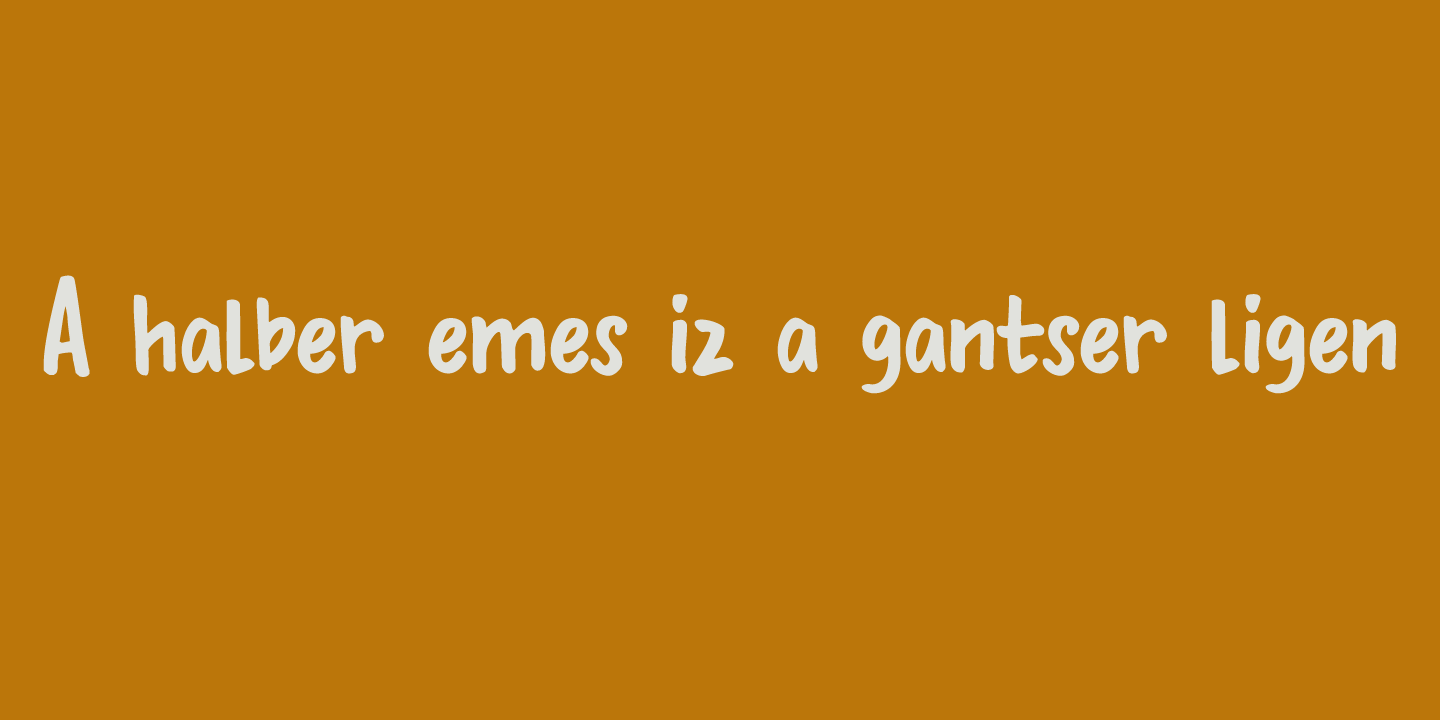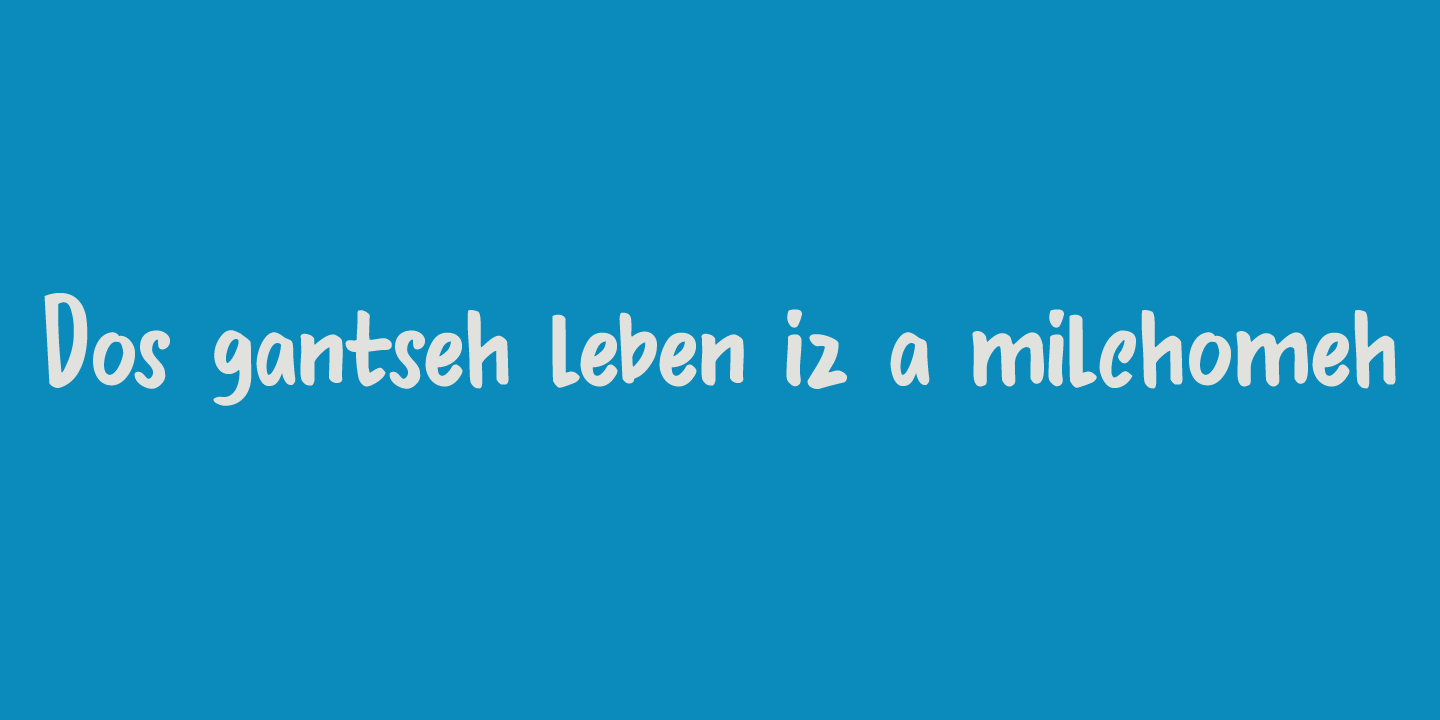
About Bupkis
Bupkis literally means ?goat\’s dropping? in Yiddish, but it is used to say ?nothing, zero, zilch?. Bupkis is a very nice handmade font. A little formal, a little uneven, a little unusual. Use for it whatever you like, but product packaging, cards and…